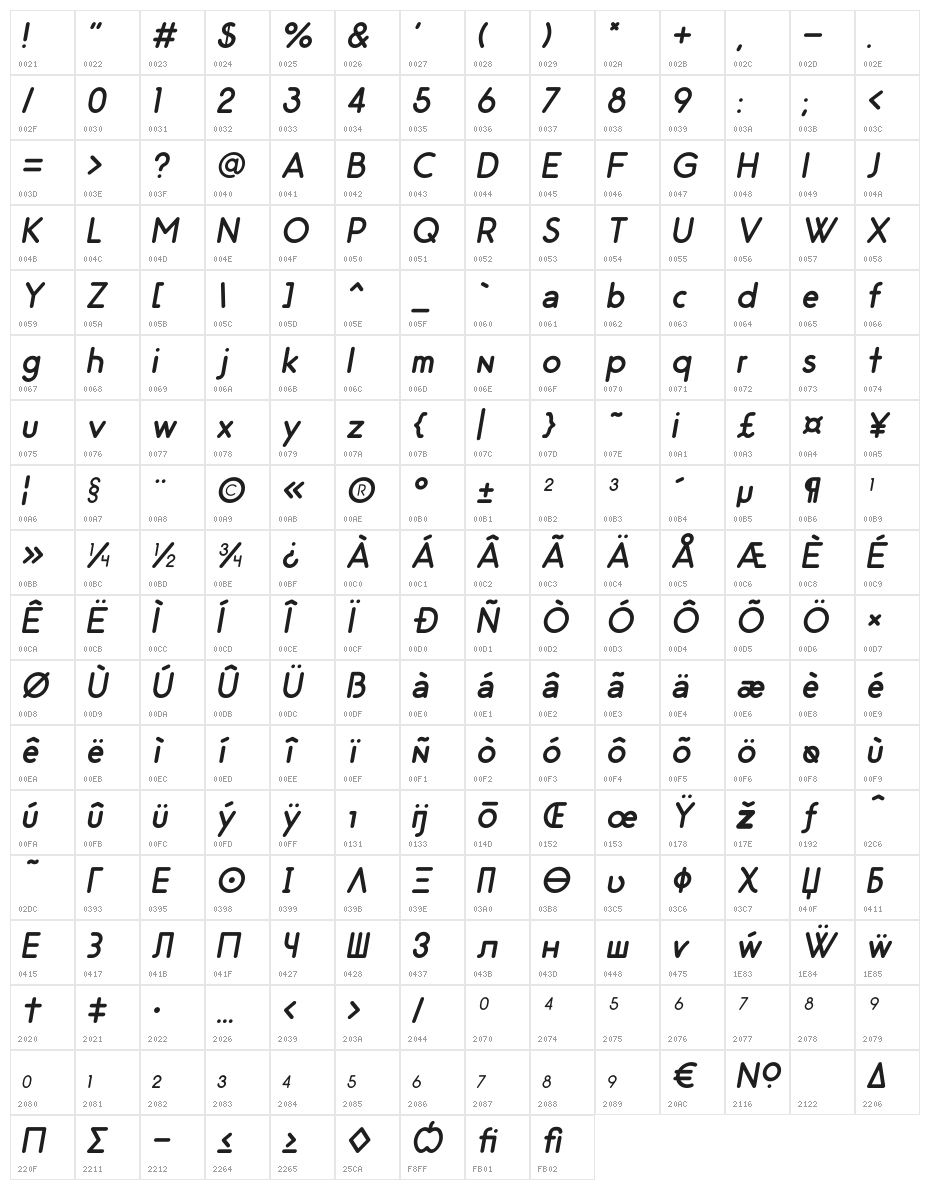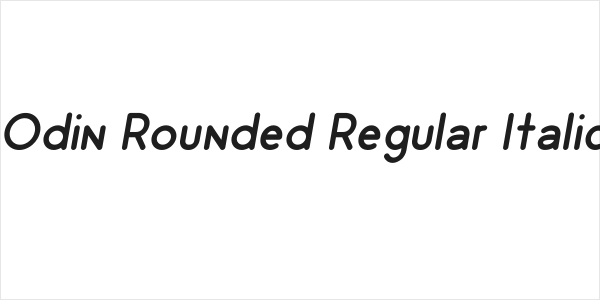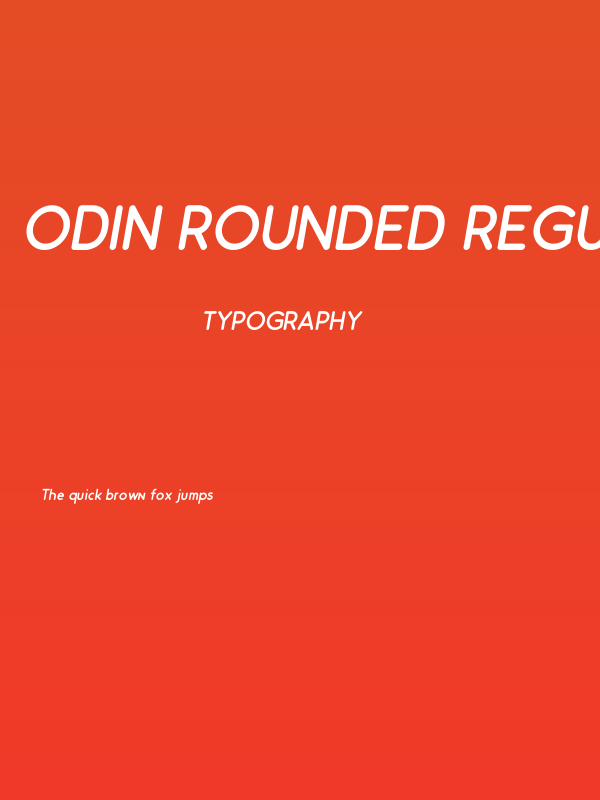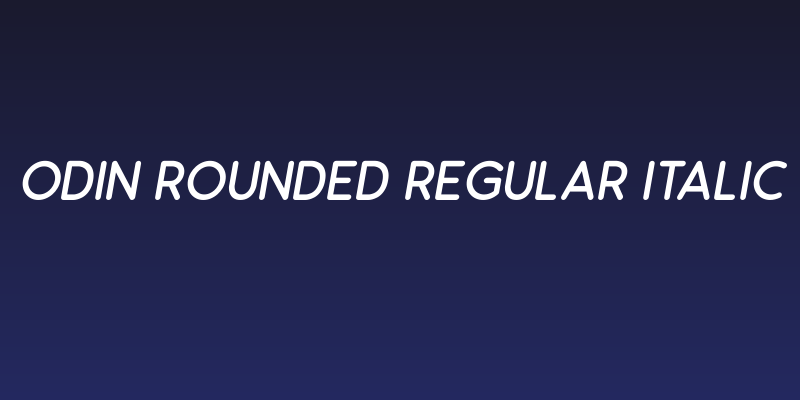
Odin Rounded Regular Italic Font
Odin Rounded Regular Italic Description
This typeface features a rounded, smooth design with a contemporary and friendly appearance. The characters are slightly italicized, giving a sense of motion and fluidity. The rounded edges contribute to a soft and approachable feel, making it suitable for a variety of applications. The font maintains a consistent stroke width, ensuring readability across different sizes. Its modern aesthetic is complemented by a clean and uncluttered look, making it versatile for both digital and print media. The numerals and special characters are designed to match the overall style, providing a cohesive visual experience.
| Proposed Projects | Ideal for branding, advertising, packaging, and web design projects that require a modern and approachable look. |